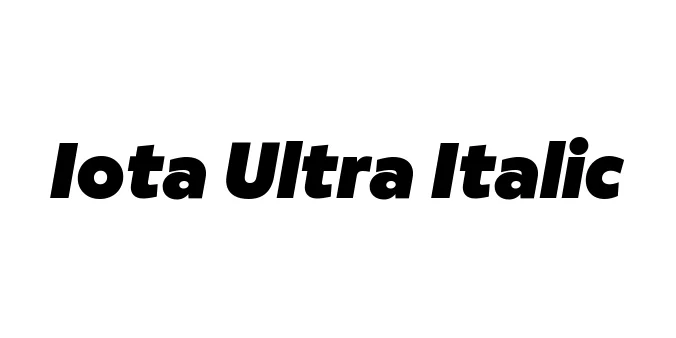
Iota Ultra Italic
Designed by David Ross (DJR)
| Font Name | Iota Ultra |
| Category | Geometric Sans Serif |
| Designer | David Ross (DJR) |
| Similar Fonts | Futura, ITC Avant Garde Gothic, Montserrat, Gotham |
Iota Ultra Italic is a striking geometric sans-serif typeface that emphasizes clarity and modern sophistication. Derived from the minimalist principles of mid-century design, this specific variant pushes the boundaries of slanted typography to create a sense of motion and urgency. Its clean lines and perfectly circular forms make it an excellent choice for contemporary branding projects that require a balance between technical precision and artistic flair.
The Ultra Italic weight is particularly notable for its extreme angle, which provides a dramatic visual impact without sacrificing legibility. This makes it a favorite among designers for high-impact headlines, editorial layouts, and sports-related graphics. Whether used in digital interfaces or print media, Iota Ultra Italic stands out as a versatile tool for creating dynamic typographic hierarchies.
Iota Ultra Italic Best Uses
Perfect for logos and corporate identity systems that want to convey innovation.
Great for dynamic headlines in magazines and lifestyle publications.
The extreme slant conveys speed and agility in athletic apparel and promotional material.
Highly effective for hero sections and high-energy call-to-action buttons.